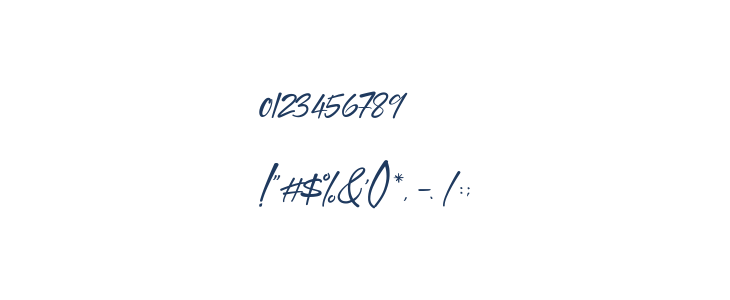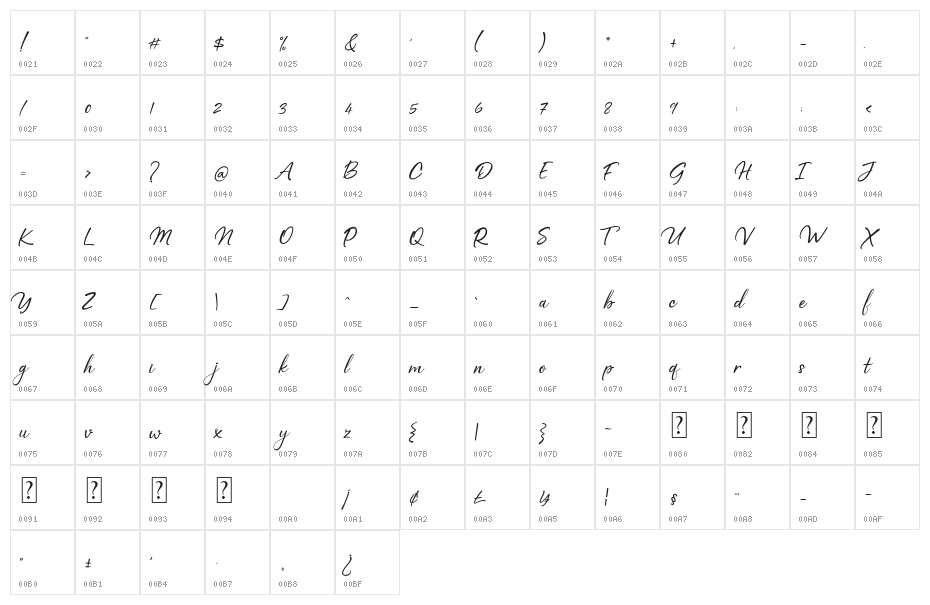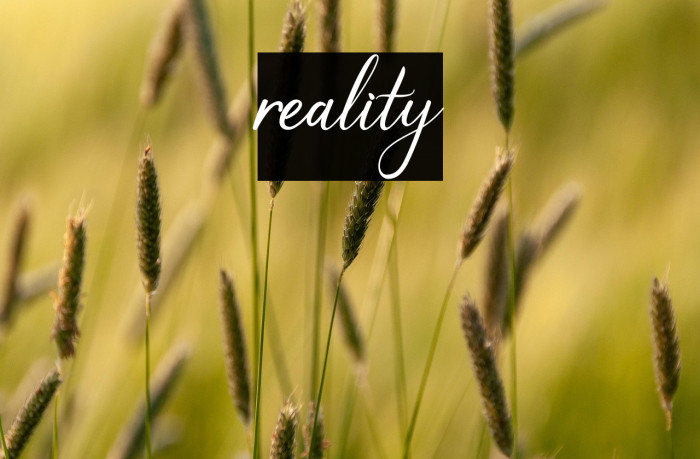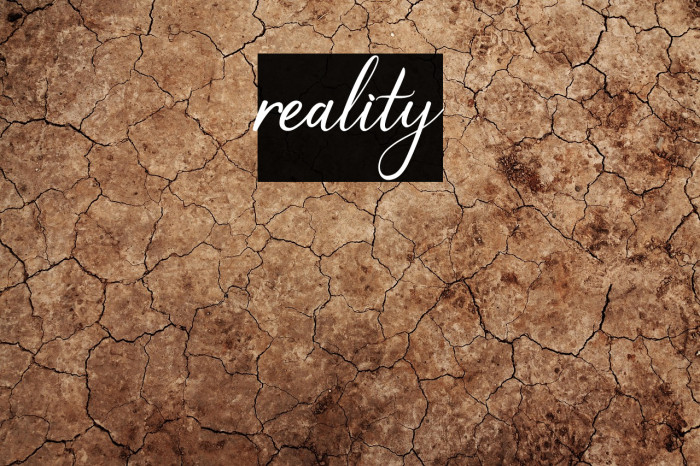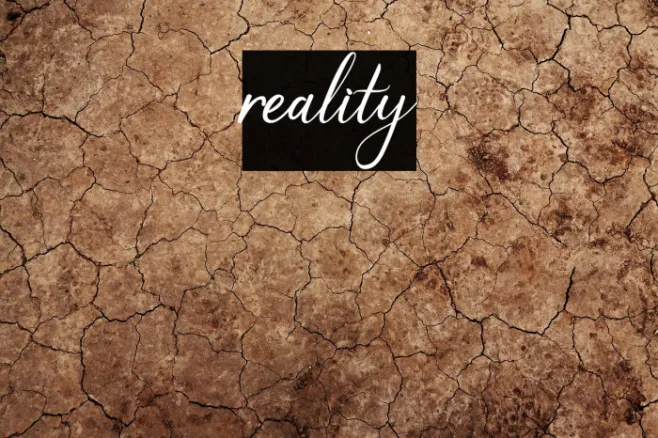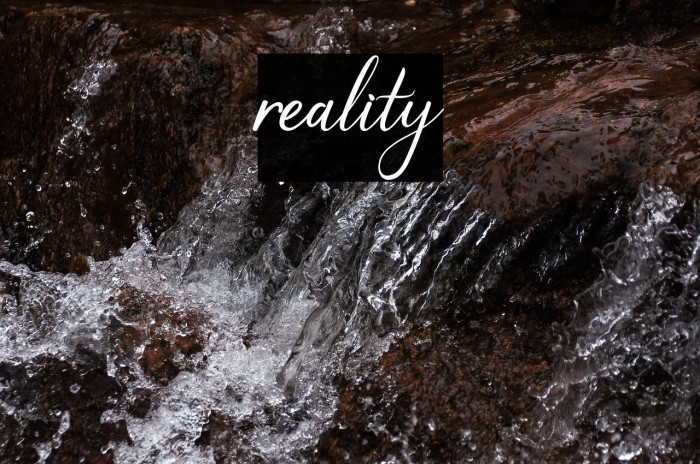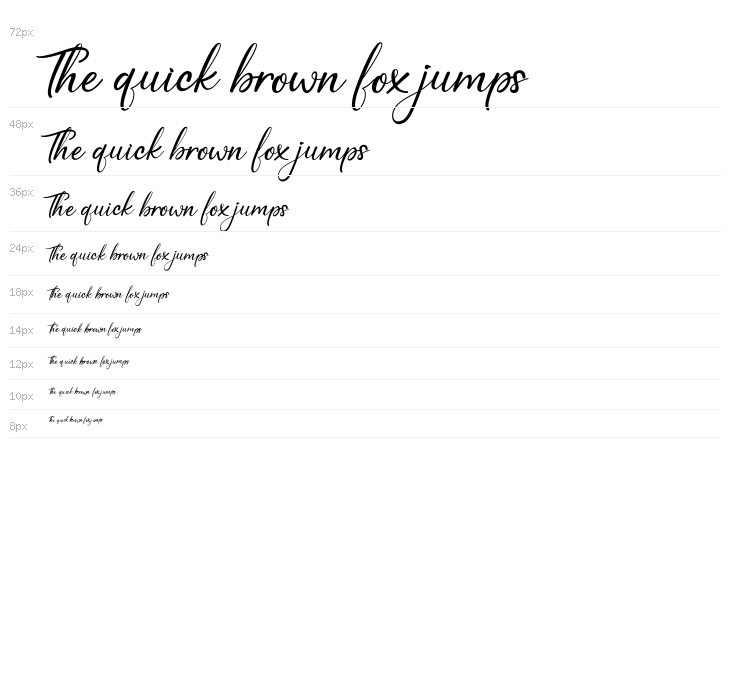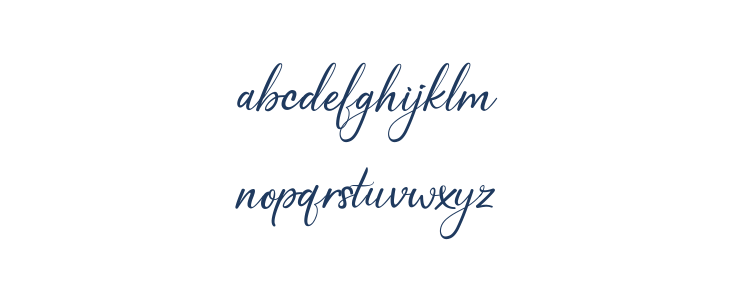
reality Font
reality Description
This elegant script font exudes a sense of sophistication and fluidity, characterized by its flowing, cursive letterforms. The uppercase letters are bold and dynamic, with sweeping curves and flourishes that add a touch of drama. The lowercase letters maintain a consistent style, offering a harmonious blend of loops and smooth lines. The numerals are clear and legible, while the special characters complement the overall aesthetic with their graceful design. This font is perfect for projects that require a personal, handwritten touch, such as invitations, greeting cards, or branding materials.
| Use Case | Logos, Invitations, Personal stationery |
| Proposed Projects | Ideal for wedding invitations, elegant branding, greeting cards, and personal stationery. |